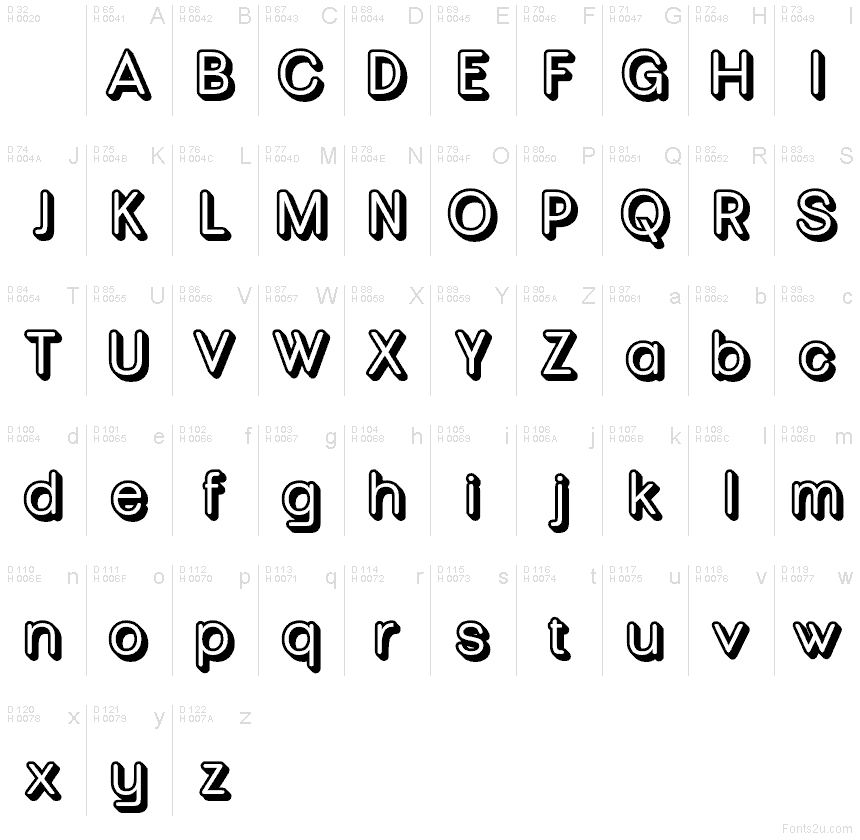
HeilyRounded-ExtrudeRight Demo
Heily Rounded ExtrudeRight font designed by Craft Supply Co. is a modern display free font with a futuristic charm that surprises audiences with its presented letters and numbers. With its rounded sans serif characters put together in such an impressive project, the font brings forth submerging 3D-like visuals illustrated using an extrude-right style and wide double-outline effect.
Such clean geometric text can be used to create fashion magazine covers, commercial or personal invitations, advertising publications, book covers, romantic engagement/wedding cards, Instagram stories/statuses/post art covers, Shopify/WooCommerce e-commerce website designs, body copy in blogs/articles/documents.